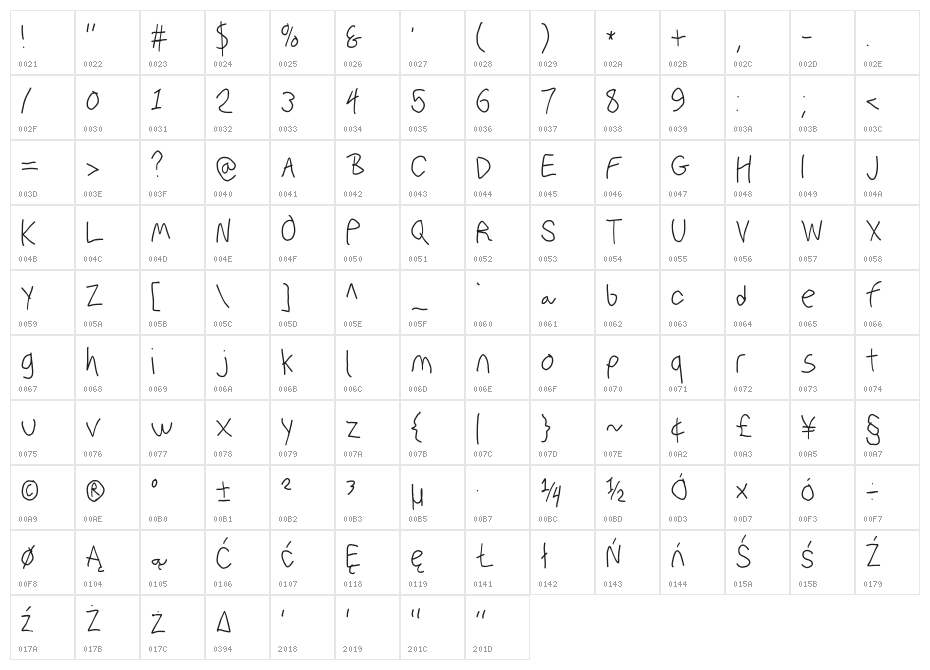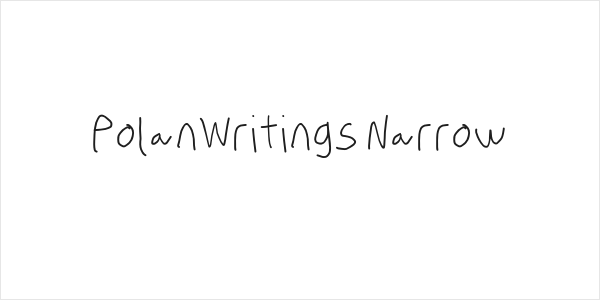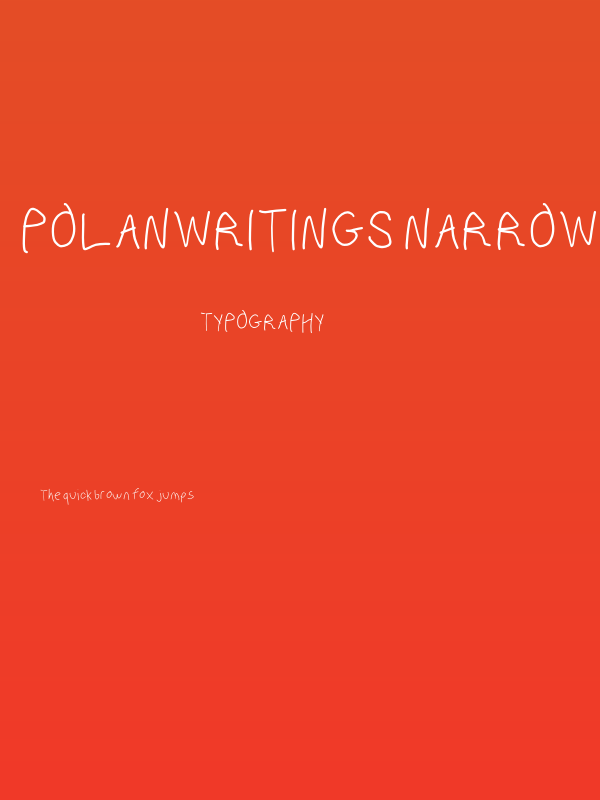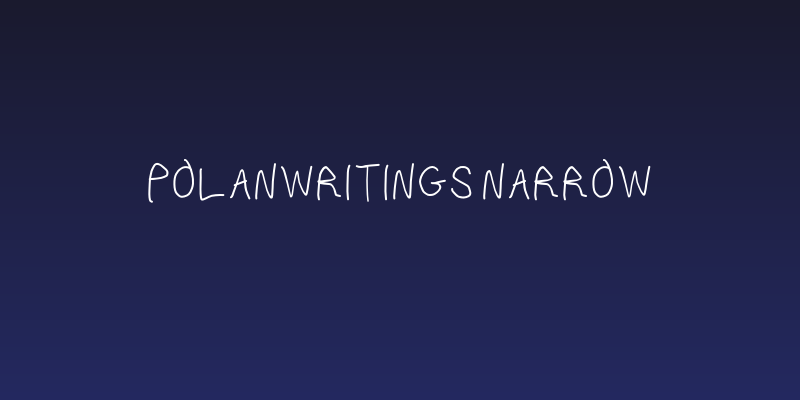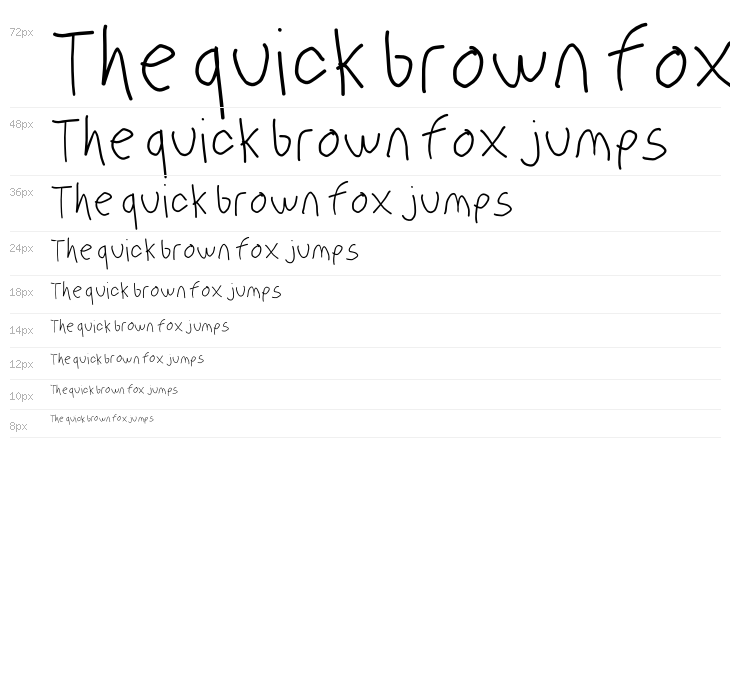
PolanWritings Narrow Font
PolanWritings Narrow Description
This font features a playful, handwritten style with a casual and informal appearance. The letters are slightly irregular, giving it a personal and authentic feel, reminiscent of quick, spontaneous writing. The strokes are consistent in width, maintaining a uniform look throughout. The characters are narrow and elongated, which adds to the font's unique charm. The uppercase and lowercase letters are distinct, with the lowercase letters having a more rounded and softer appearance. The numbers and special characters follow the same handwritten style, ensuring a cohesive look across all elements.
| Proposed Projects | Ideal for personal notes, greeting cards, casual invitations, and creative projects that require a personal touch. |